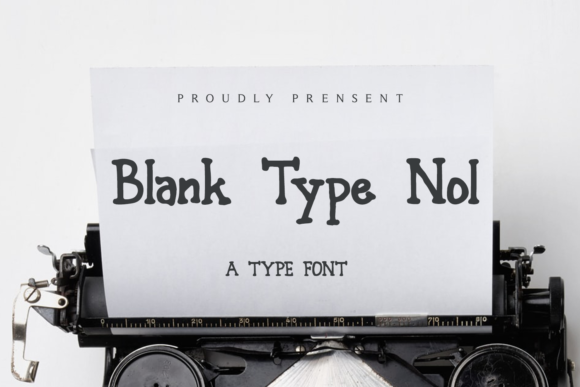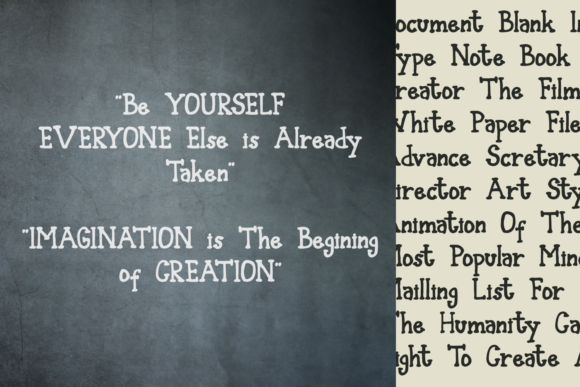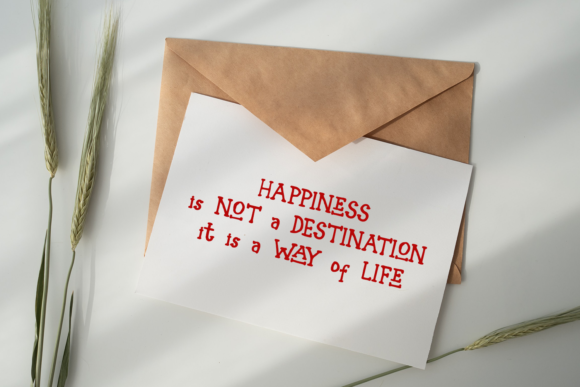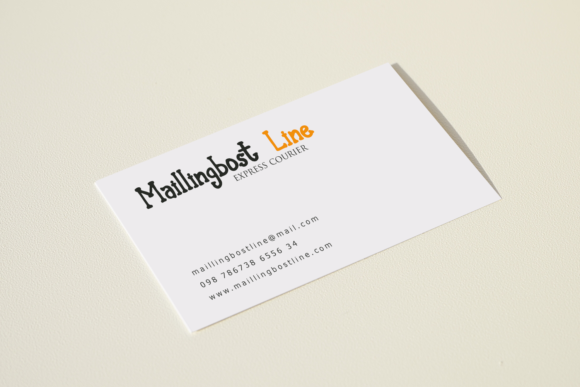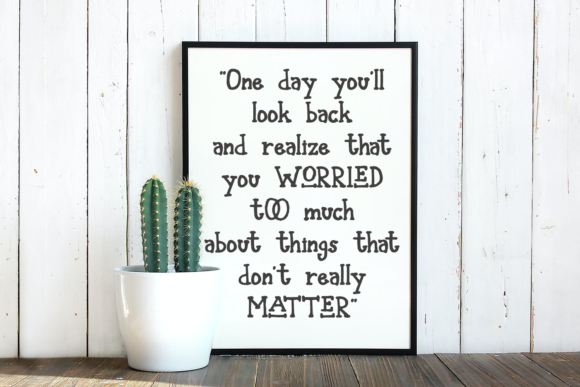
About Blank Type Nol Font
Blank Type Nol is a casual handwritten font that offers incredible versatility and a wide range of creative possibilities. With its relaxed and natural style, it adds a personal and authentic touch to your designs, making them stand out and capturing attention.
Whether you’re working on branding, social media graphics, posters, invitations, or any other design project, Blank Type Nol can be a valuable asset. Its casual and approachable vibe appeals to a broad audience, making it suitable for a variety of contexts.
The versatility of Blank Type Nol lies in its ability to adapt to different design themes and styles. It can effortlessly enhance both minimalist and bold designs, adding a touch of uniqueness and character. The handwritten nature of the font brings a sense of warmth and personality to your creations, making them more engaging and relatable.
Additionally, Blank Type Nol’s legibility ensures that your message is effectively communicated. Its letters are clear and easy to read, making it suitable for various applications such as headlines, body text, or even smaller-sized designs.
Whether you’re designing for a professional project or a personal endeavor, Blank Type Nol allows you to unleash your creativity and bring your ideas to life. Its versatility and charm make it a valuable tool for creating spectacular designs that leave a lasting impression.
In summary, Blank Type Nol is a casual handwritten font that offers incredible versatility and a natural, approachable style. It can be used in a wide range of design projects, allowing you to create spectacular and engaging designs that capture attention and leave a memorable impact.